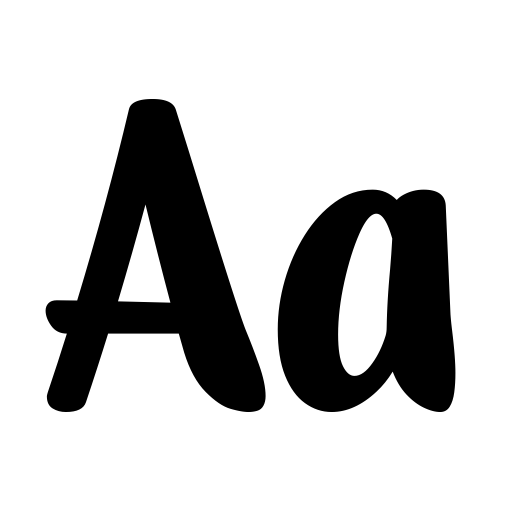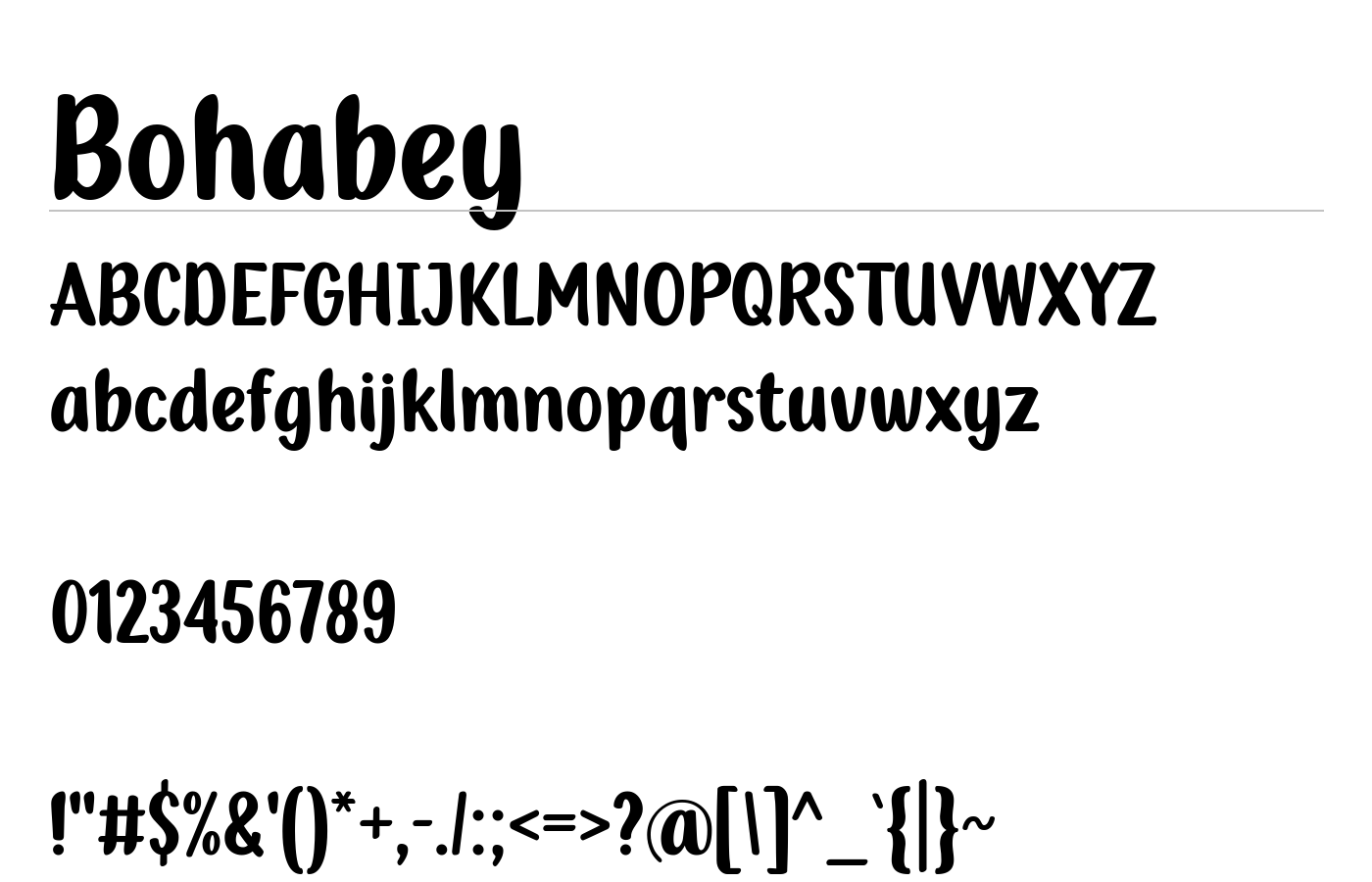
Bohabey is a playful, hand-drawn sans serif font with a friendly and casual feel. Its rounded, slightly irregular letterforms and moderate contrast give it a warm, approachable personality, making it ideal for creative projects, informal branding, and fun headlines. This font works beautifully in children’s books, packaging, and anywhere a relaxed, lively touch is needed.
Bohabey Font
About Bohabey Font
| Font family | Bohabey Font |
| Designer | Kristopher Sianturi; Situjuh Nazara |